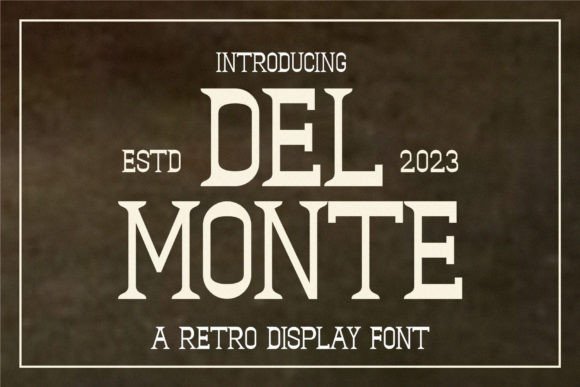
Unleash your imagination and bring your words to life with Del Monte, the display serif font that captivates hearts and commands attention. Designed by the brilliant Alfinart, this font family is not just a collection of letters, but an artistic masterpiece that transforms your words into captivating expressions.
Immerse yourself in a world of elegance and sophistication as Del Monte graces your digital canvases. Its sweeping curves and graceful serifs dance across the screen, creating an aura of timeless beauty. Whether you're crafting stunning illustrations, captivating book titles, or designing eye-catching website titles, Del Monte is your ultimate companion.
Step into the realm of creativity and let Del Monte guide you on an extraordinary journey. Its versatility knows no bounds, allowing you to effortlessly create captivating word art that breathes life into your digital creations. Whether you're designing graphics for social media, crafting videos that captivate audiences, or developing games that transport players to new worlds, Del Monte is your secret weapon.
With Del Monte, the possibilities are endless. Unleash your inner artist and let your words dance across the screen in a symphony of style and grace. Let Del Monte be your muse, transforming your digital creations into masterpieces that leave a lasting impression.
Don't settle for ordinary fonts. Choose Del Monte, the display serif font that ignites your imagination and propels your creativity to new heights. Embrace the power of expression and let your words shine with unrivaled beauty.